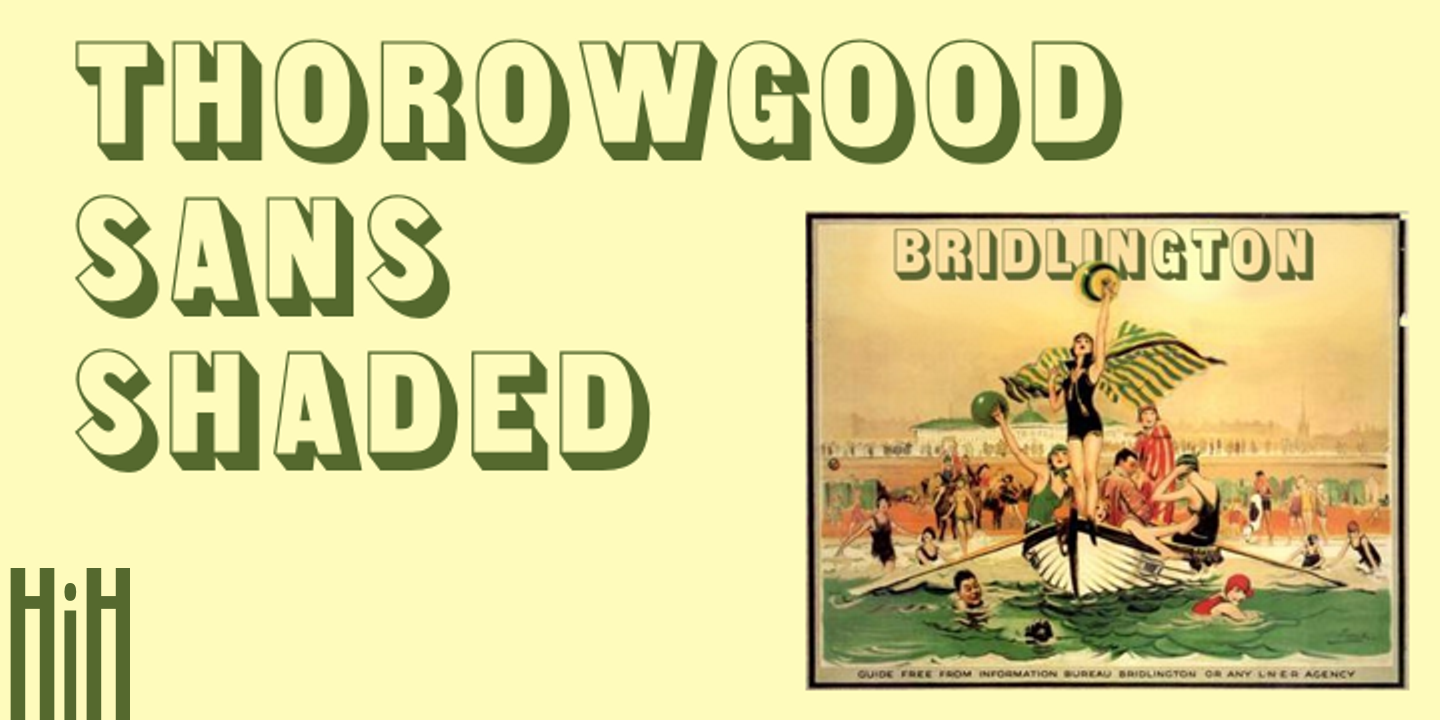
Thorowgood Sans Font is perfect for heritage printing museums, traditional typography workshops, Victorian-era historical societies, classic book publishers, antique typography collections, authentic letterpress studios, and distinguished typographic design agencies. This distinguished typeface embodies traditional printing craftsmanship and historical typography excellence, bringing authentic Victorian elegance and typographic heritage to any design project celebrating printing history and classical letterform traditions.
What makes Thorowgood Sans Font exciting is its masterful recreation of Victorian-era typography principles and traditional printing craftsmanship that perfectly captures the essence of historical letterform excellence and printing heritage. The font features carefully proportioned letterforms with classical Victorian details and traditional character spacing that evoke both the precision of historical typesetting and the elegance of period printing craftsmanship. Its distinguished character appeals to typography enthusiasts while maintaining exceptional readability for both historical documentation and contemporary design applications.
The Thorowgood Sans Font family includes multiple weights with complementary italic variations and Victorian ornamental elements. The character set features historical ligatures, printing symbols, classical alternates, and traditional decorative accents that enhance the font's authentic appeal. Advanced OpenType features include period-appropriate character variations and multilingual support for international typography museums and heritage printing applications.
Whether you're designing typography heritage brands, creating historical printing materials, or developing classical design content, Thorowgood Sans Font Free Download provides exceptional historical authenticity and versatility. This distinguished typeface transforms ordinary text into meaningful typographic experiences that honor printing traditions while establishing respected brand recognition in competitive heritage design and traditional typography marketplaces.